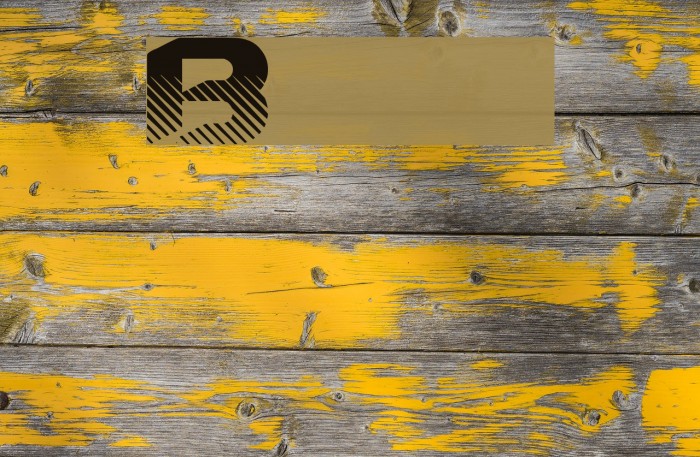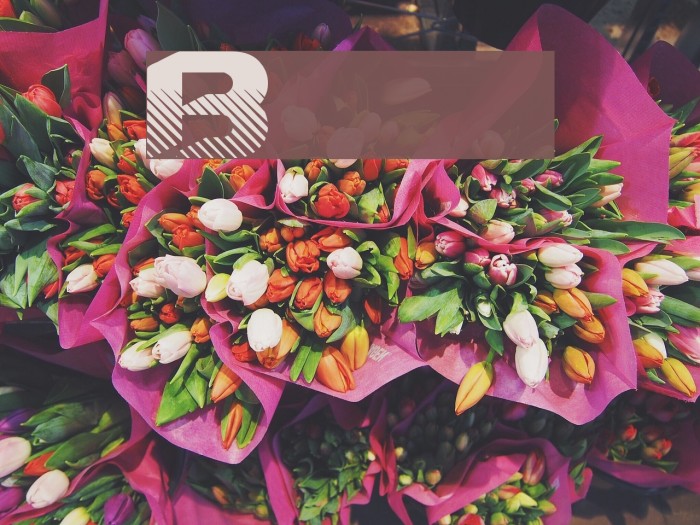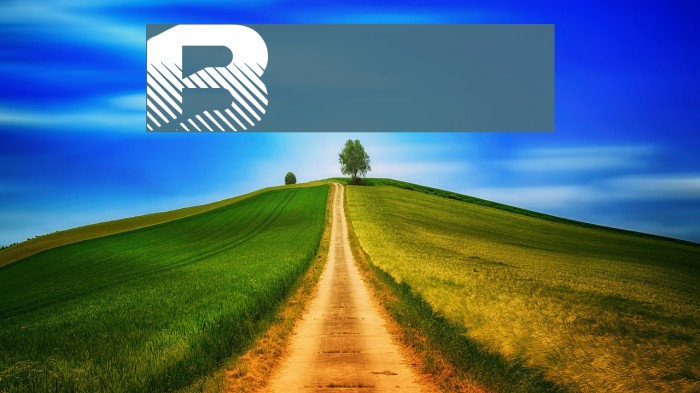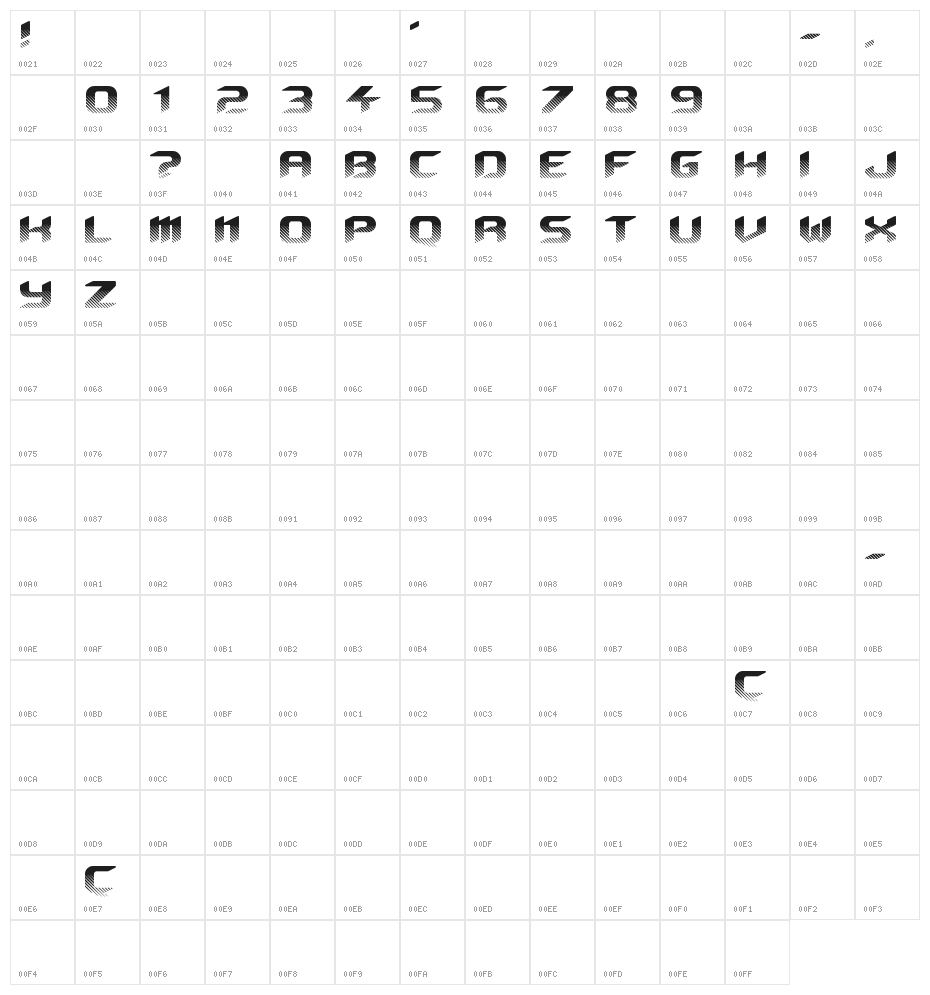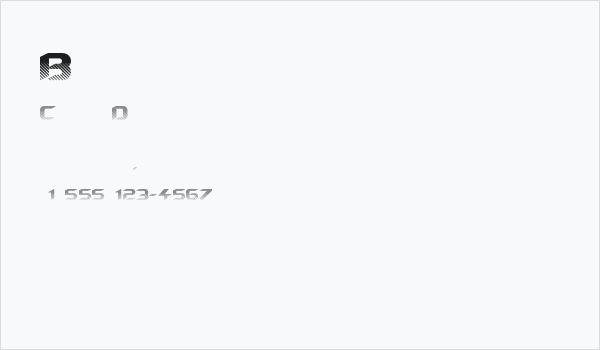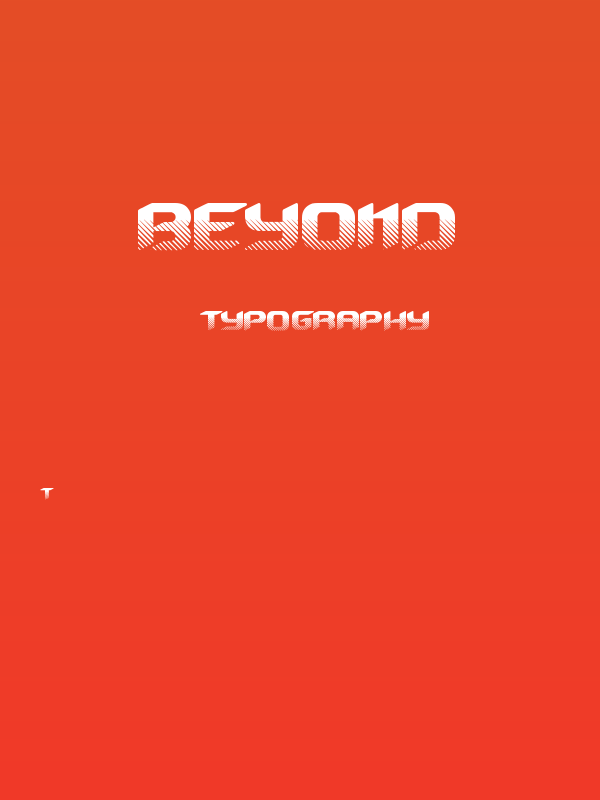
Beyond Font
This font features a bold, futuristic design with a distinct diagonal line pattern running through each character, creating a sense of movement and dynamism. The characters are geometric and angular, with a strong presence that makes them stand out. The uppercase letters are particularly striking, with a uniform height and width that gives the font a cohesive look. The numbers and special characters follow the same design principles, ensuring consistency across all elements. This font is ideal for projects that require a modern, edgy aesthetic.
A bold, futuristic font with diagonal line patterns and geometric shapes.
- Proposed Projects: Ideal for sci-fi themed designs, technology branding, video game titles, and modern posters.